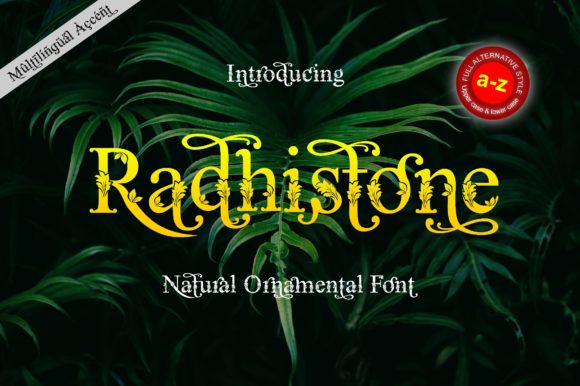
Introducing Radhistone, the serif font that will make your designs bloom! With its captivating flower-themed characters, this font adds a touch of elegance and beauty to any project. Step into the world of visual artistry and let Radhistone elevate your creativity. Crafted with meticulous attention to detail by ZetDesign, this font is a masterpiece that will transform your words into works of art.
Unleash your inner artist and explore the versatility of Radhistone. Whether you're designing social media posts for Instagram, creating logos, or adding a touch of sophistication to your calligraphy scripts, Radhistone will bring your vision to life. Its delicate curves and intricate details evoke a sense of luxury and refinement, making it perfect for branding, wedding invitations, and personal projects.
Don't settle for ordinary fonts that blend in with the crowd. Choose Radhistone and let your designs shine. Its unique aesthetic will captivate your audience and leave a lasting impression. Embrace the beauty of nature and let Radhistone bring your creative dreams to life. Download Radhistone today and embark on a journey of visual storytelling that will leave your audience spellbound.